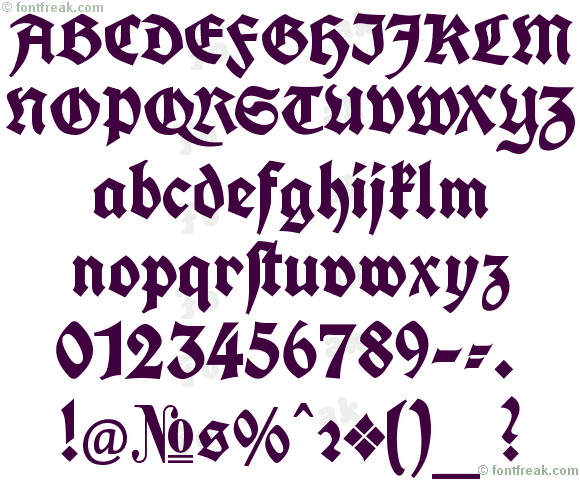
Koch Fette Deutsche Schrift
Koch Fette Deutsche Schrift is a striking display font designed by Peter Wiegel, classified as a decorative typeface. This font embodies a bold Gothic style, characterized by its sharp, angular strokes and intricate details that pay homage to traditional Germanic typography. The stroke weight is significant, creating a strong visual impact, while the high contrast between thick and thin lines lends a dynamic quality to the typeface. The spacing is carefully crafted, allowing for legibility without sacrificing its ornate aesthetic, making it an eye-catching choice for various design projects.
This font is ideal for specific use cases such as wedding invitations, where its elegant yet bold presence can enhance the celebratory theme. It also suits movie posters, especially those in historical or fantasy genres, thanks to its dramatic flair. Restaurant menus can benefit from its unique character, drawing attention to specific dishes or special events. Additionally, Koch Fette Deutsche Schrift is perfect for branding projects that aim to evoke a sense of heritage or tradition, making it a valuable asset for graphic designers and small business owners alike.
Targeted towards graphic designers, content creators, and anyone seeking to make a memorable impression, this font offers a distinct personality that can elevate a project beyond the ordinary. The Koch Fette Deutsche Schrift font free download provides an excellent opportunity for creatives to experiment with its unique style. Its ability to blend tradition with modern design sensibilities makes it a standout choice in the world of typography, ensuring that any project featuring this font will capture attention and leave a lasting impression.